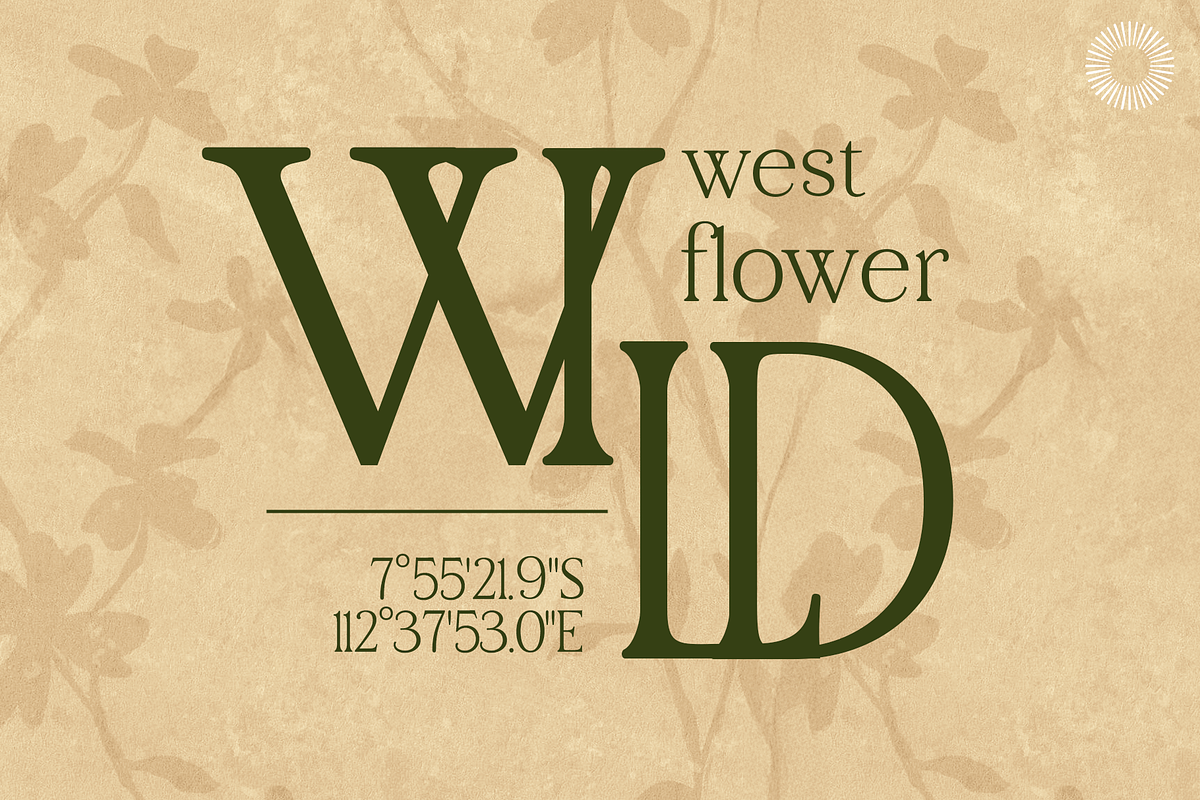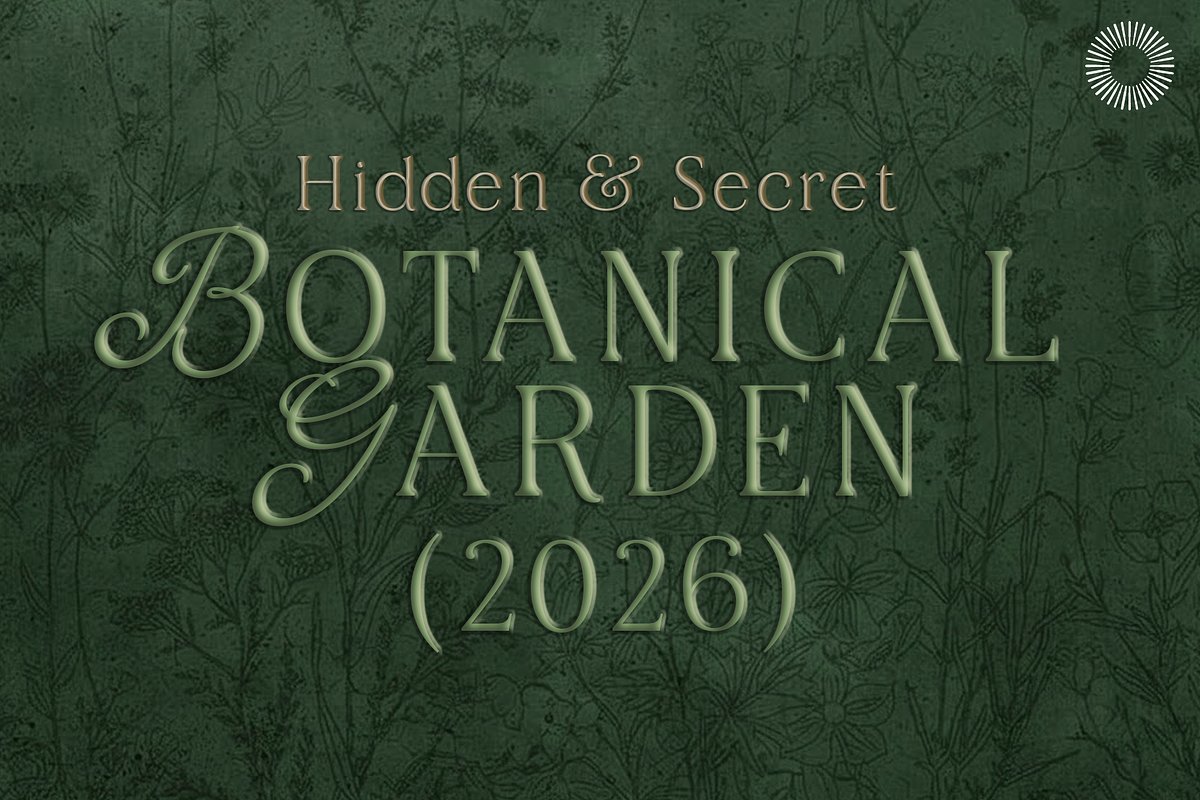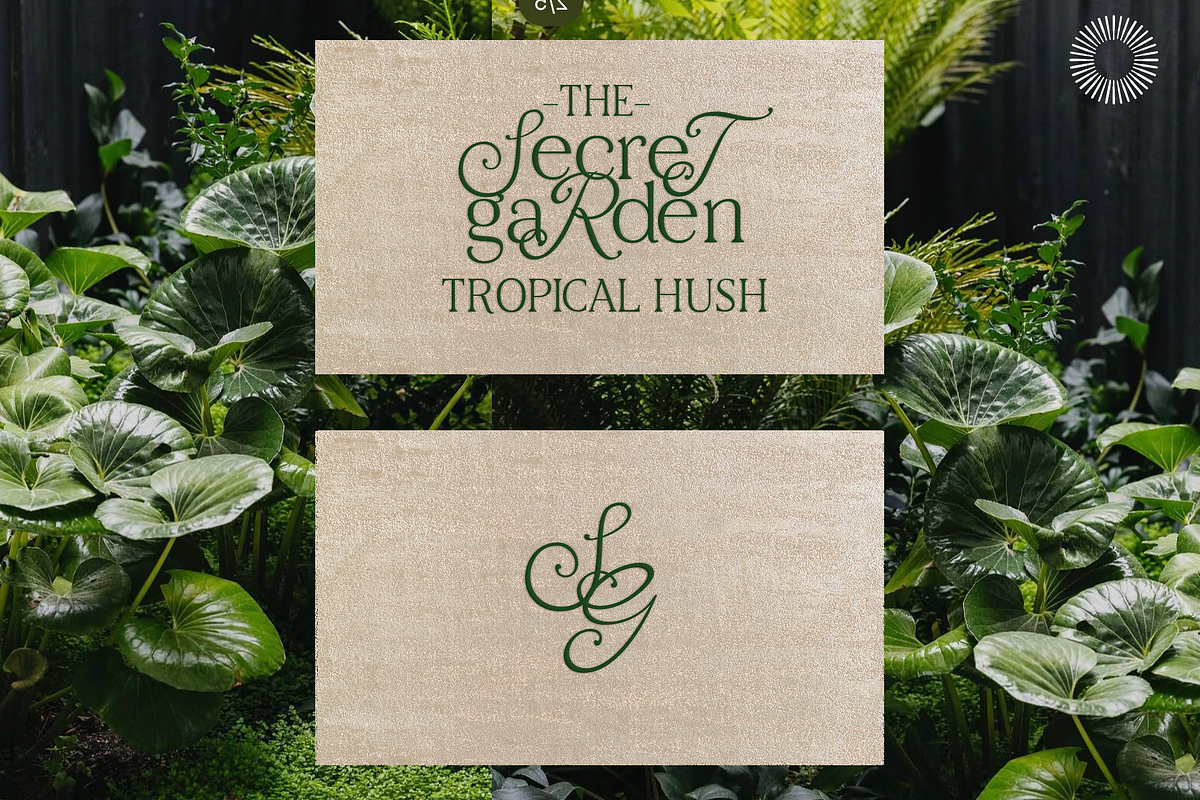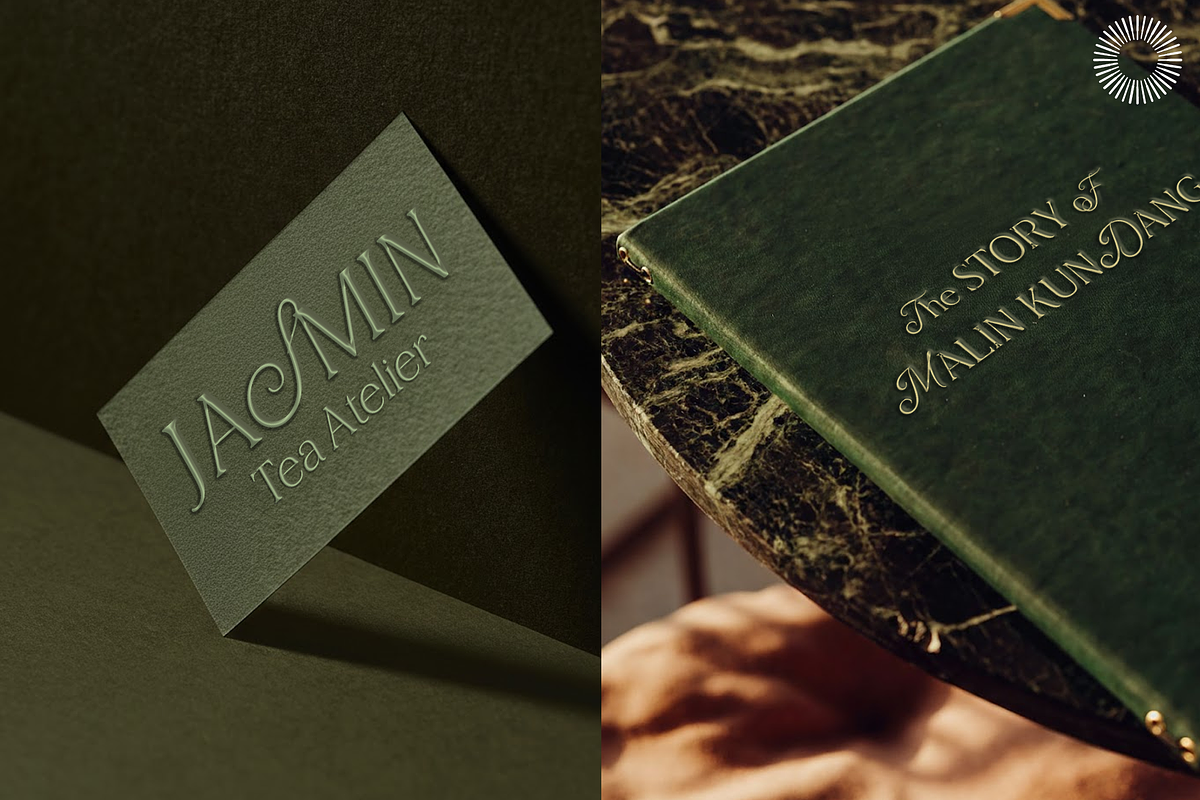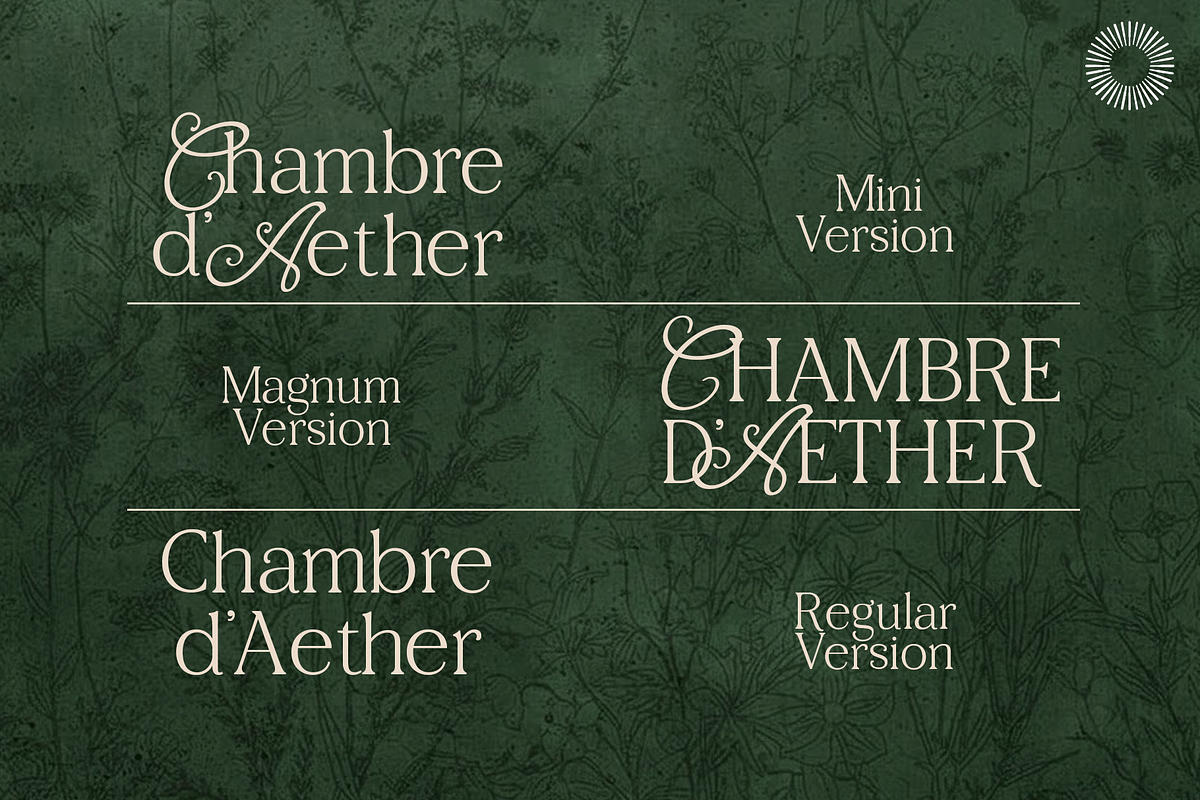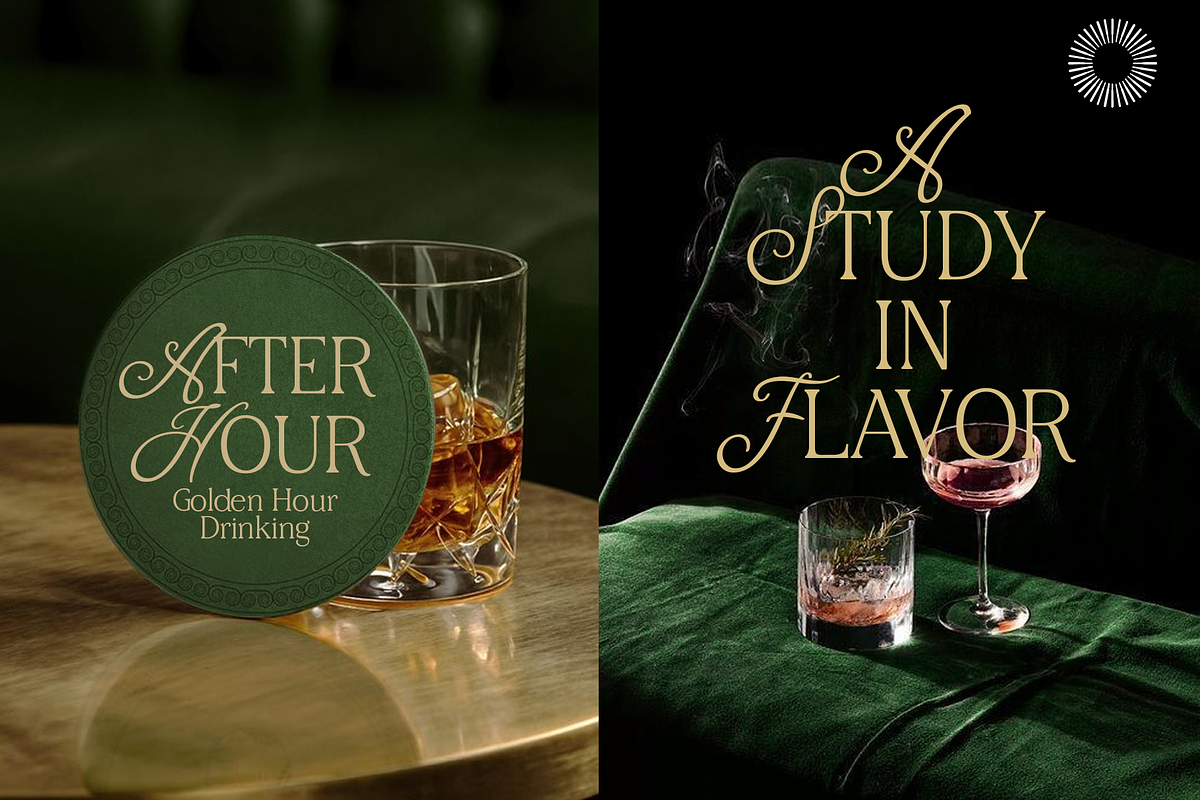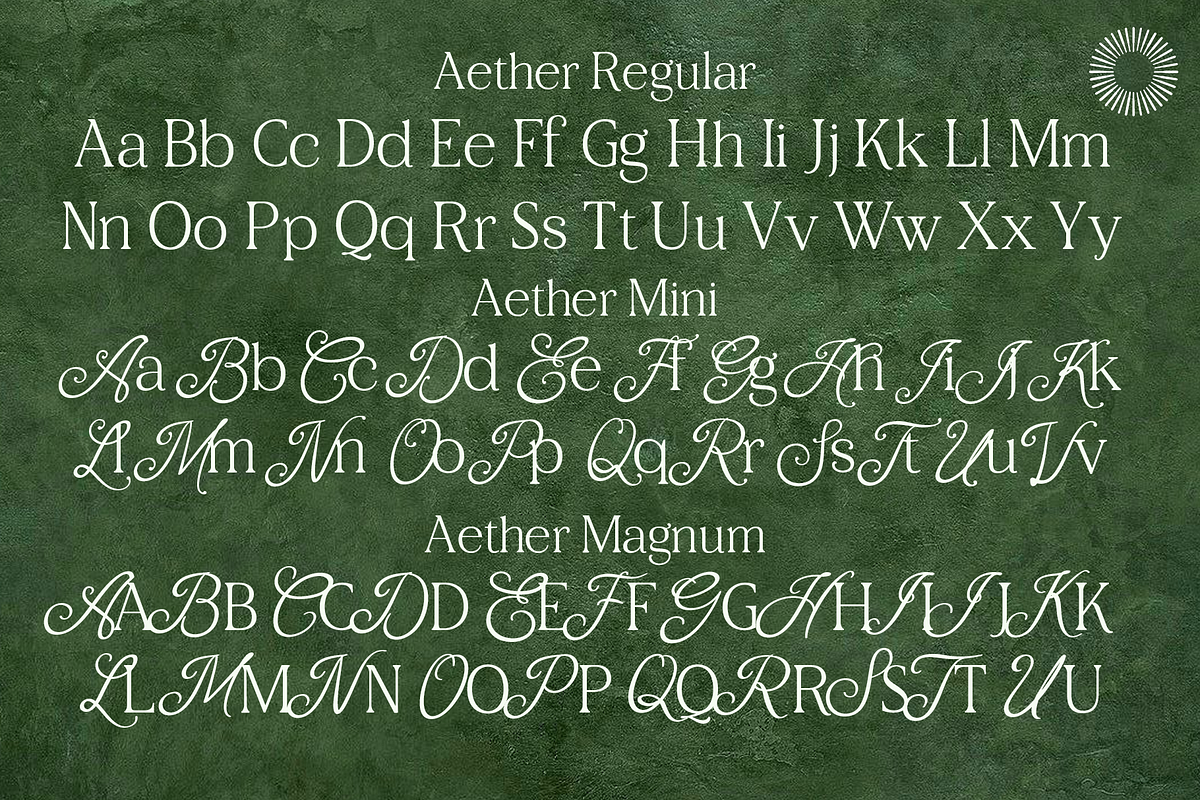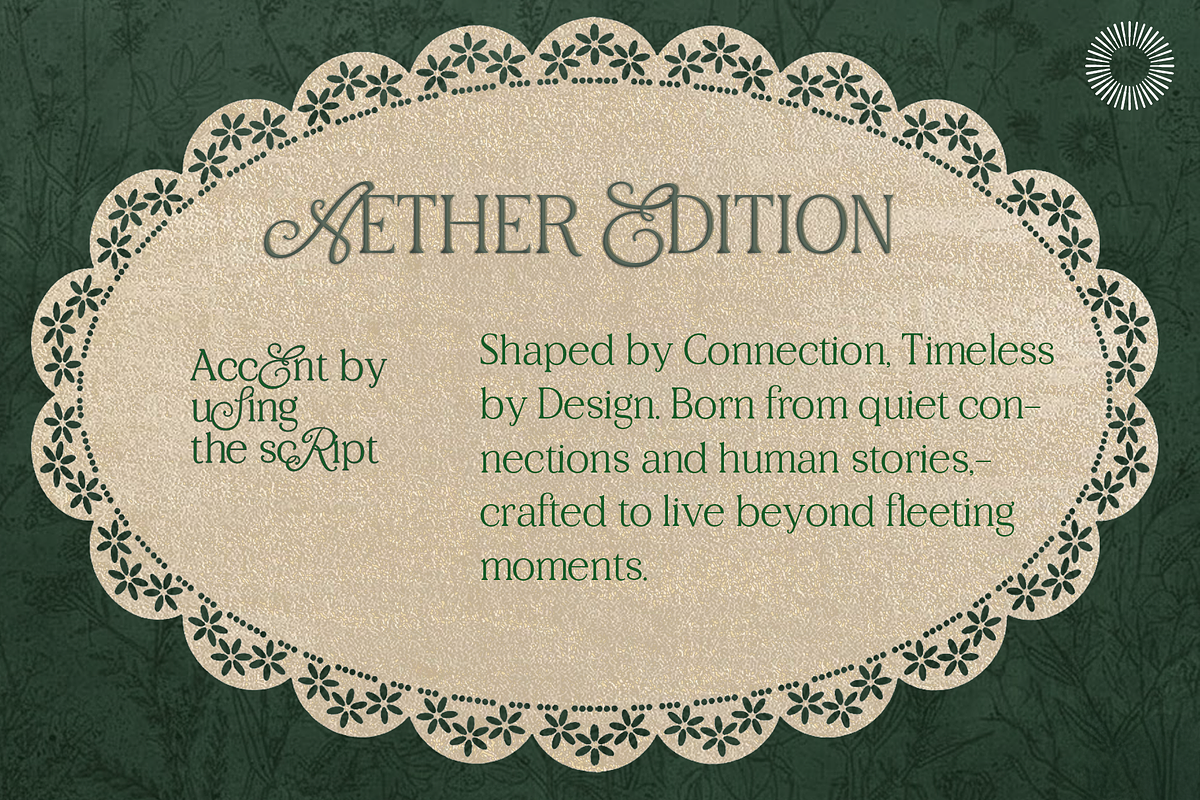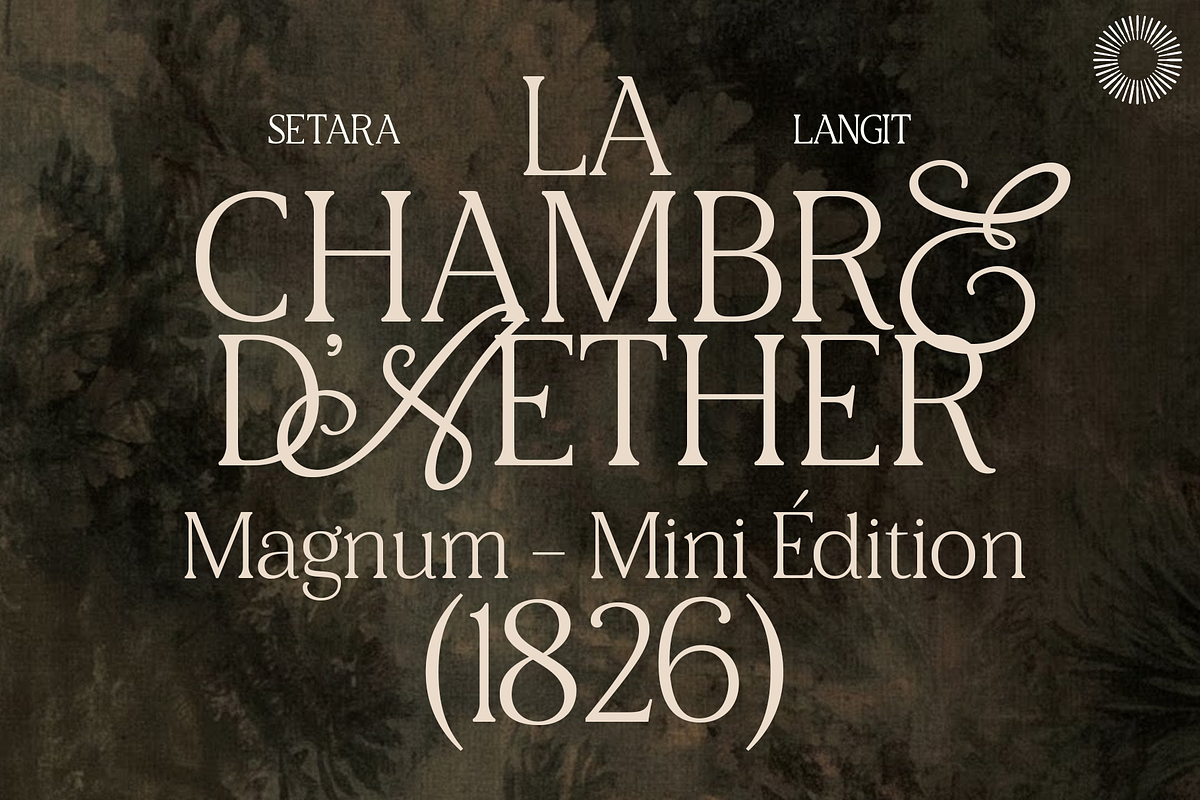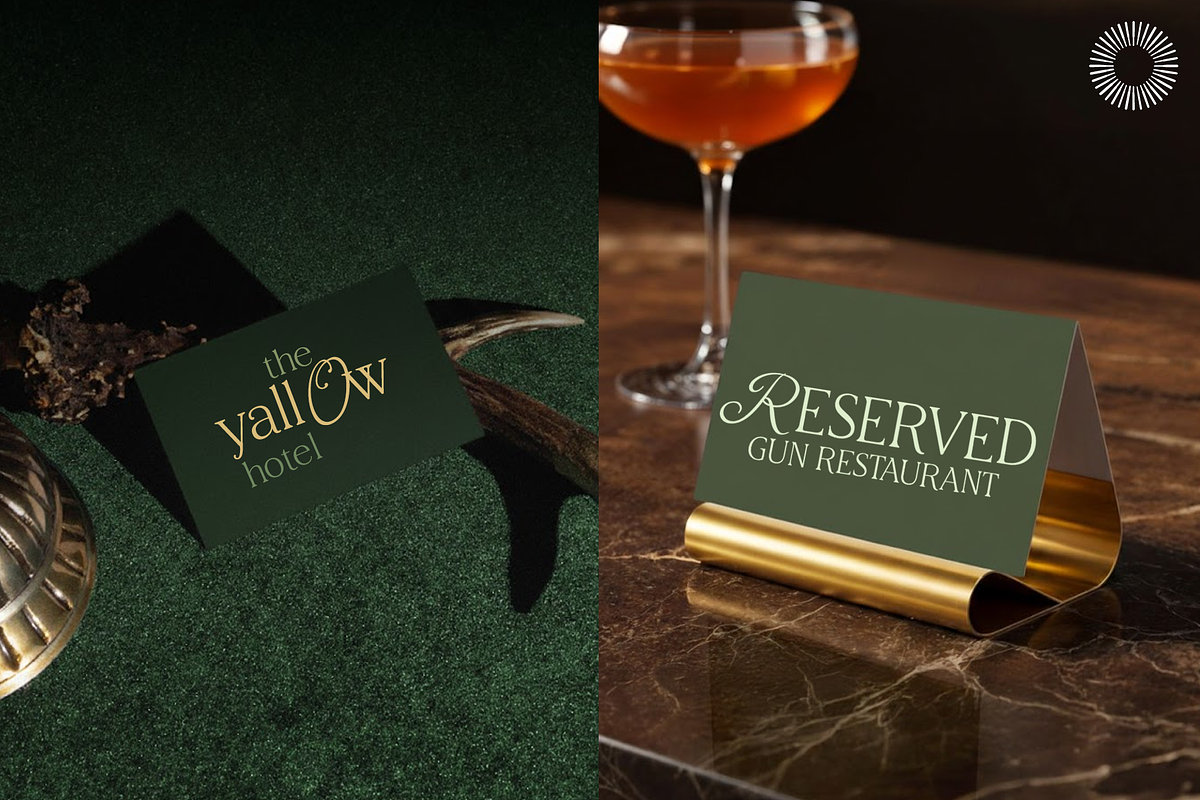
Aether Multi-Style Serif
Aether – Editorial Contemporary Serif Typeface Aether is a refined contemporary serif typeface designed for elegant editorial layouts, branding, and high-end visual identities. Inspired by classical typography and modern calligraphic details, Aether blends soft serif structures with graceful curves, creating a timeless yet distinctive character. Aether comes in three carefully crafted styles — Mini, Regular, and Magnum — allowing you to work seamlessly across different scales. From small body text to bold display headlines, Aether maintains clarity, elegance, and strong personality in every size. This multi-style system makes Aether highly versatile for both subtle and expressive designs, giving designers full control over hierarchy, rhythm, and visual tone.
Styles Included
- Mini – Optimized for small text, captions, and long reading
- Regular – Perfect for branding, editorial content, and layouts
- Magnum – Designed for large headlines, posters, and statements
- Three optical styles (Mini / Regular / Magnum)
- Elegant serif structure with calligraphic influence
- Clean spacing and balanced proportions
- Uppercase and lowercase letters
- Numerals, punctuation, and basic symbols
- Works beautifully in both digital and print
- Easy to combine with sans-serif typefaces
Best For Aether is ideal for:
- Editorial design & magazines
- Branding & logo design
- Luxury and boutique brands
- Fashion, beauty, and lifestyle projects
- Wedding invitations and stationery
- Book covers and packaging
- Posters, social media, and visual identities
Whether you’re designing a refined brand identity or an expressive editorial layout, Aether brings a sophisticated and timeless voice to your typography.